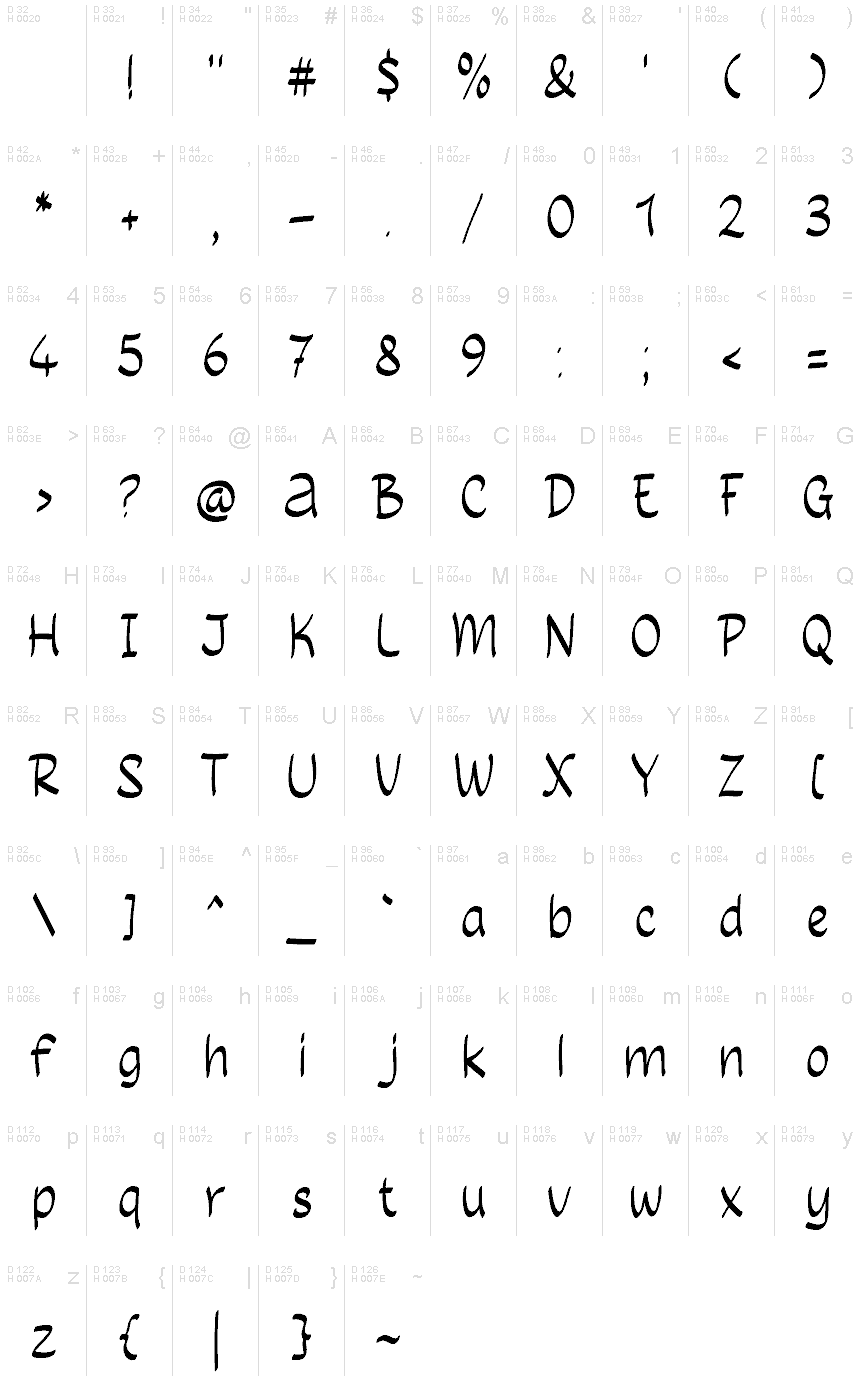
Majestic Arcade
Presenting Majestic Arcade, a handwritten script font from MJType. This exquisite display font will add a touch of elegance to any of your projects whether web projects (banners and logos), packaging, or branding projects.
It is a Majestic font to be precise with a smooth outline and sharp endings making it an impressive addition to your collection. In addition to this, the font includes OpenType features to enhance its readability and visibility such as alternate ligatures.